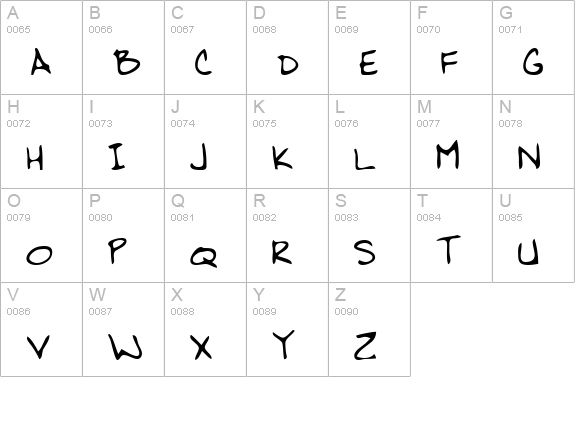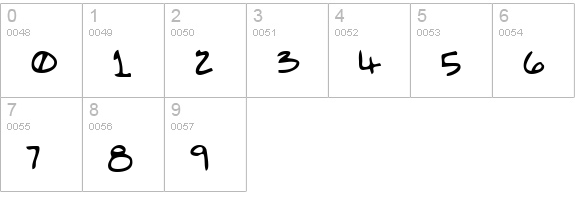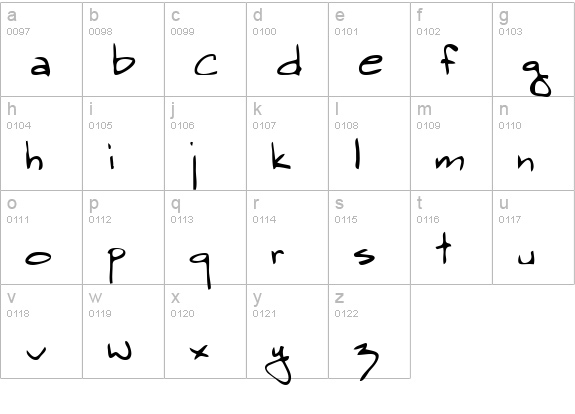
EmmettsHand Regular Font Details
EmmettsHand Regular is the standard, neutral variant in the EmmettsHand typeface family \xE2\x80\x94 well suited to general body text, paragraphs, and standard typographic work.
EmmettsHand Regular font is a charming and elegant typeface that exudes creativity and personality. With its smooth, flowing lines and unique hand-drawn look, this font is perfect for adding a touch of warmth and individuality to your projects. Whether you're designing invitations, branding materials, or social media graphics, EmmettsHand Regular will make your text stand out in a beautiful and stylish way. Best of all, EmmettsHand Regular font is completely free to download at FontsMarket.com. This means you can easily access this stunning typeface and use it in both personal and commercial projects without any restrictions. Don't miss out on the opportunity to enhance your designs with the beauty and versatility of EmmettsHand Regular font – download it today and let your creativity shine!